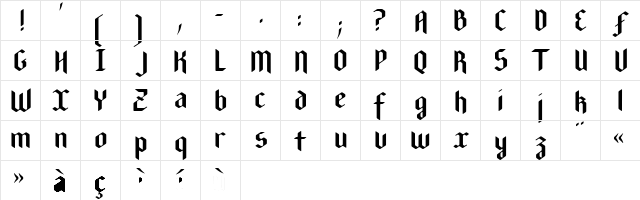
New Gothic Textura New Gothic Textura
| Foundry | Elodie Mandray |
| Designer | Elodie Mandray |
Design Context for New Gothic Textura Typeface
New Gothic Textura channels the dramatic heritage of Fraktur and Gothic scripts, bringing a sense of historical gravitas to any design.
Well-suited to band logos, craft beer branding, tattoo lettering, and heritage-themed identities.
Font Pairing: Pair with a clean neutral sans-serif for body copy to let New Gothic Textura's character lead without overwhelming the composition.
Pro Tip: Use New Gothic Textura sparingly at large sizes. Even a single word set in blackletter can define the visual register of an entire design.